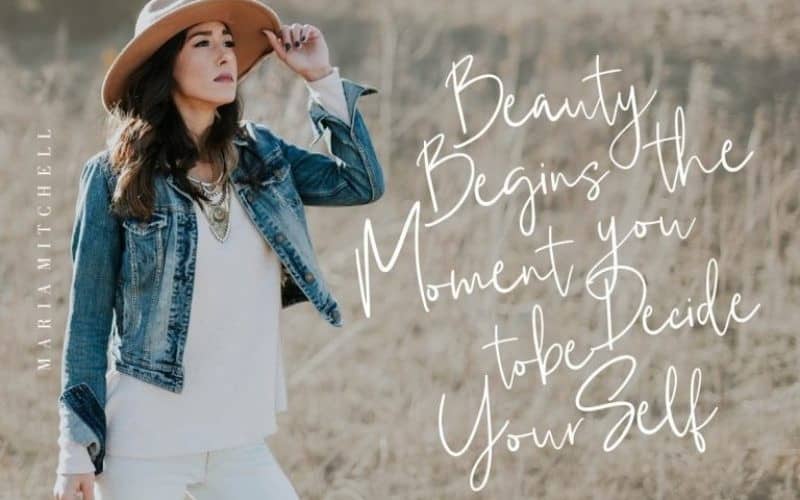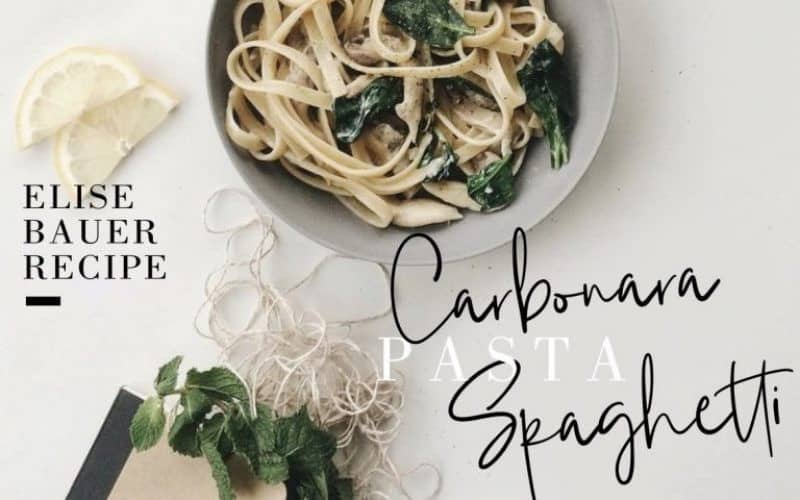
Marttiny Script Font
Marttiny Script Font is handmade script font with stunning characters. Made from font designer named Creatype Studio. This font is perfect for branding projects, logo, wedding designs, social media posts, advertisements, product packaging, product designs, label, photography, watermark, invitation, stationery and any projects that need handwriting taste.